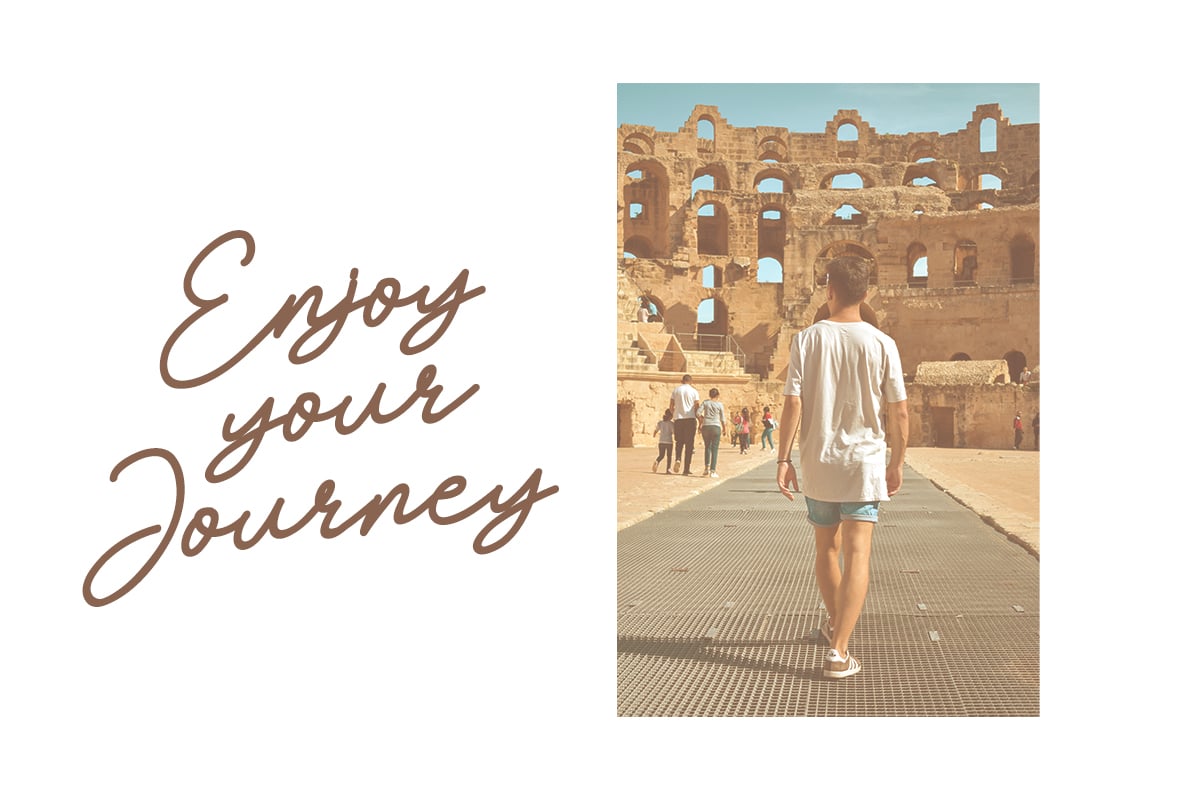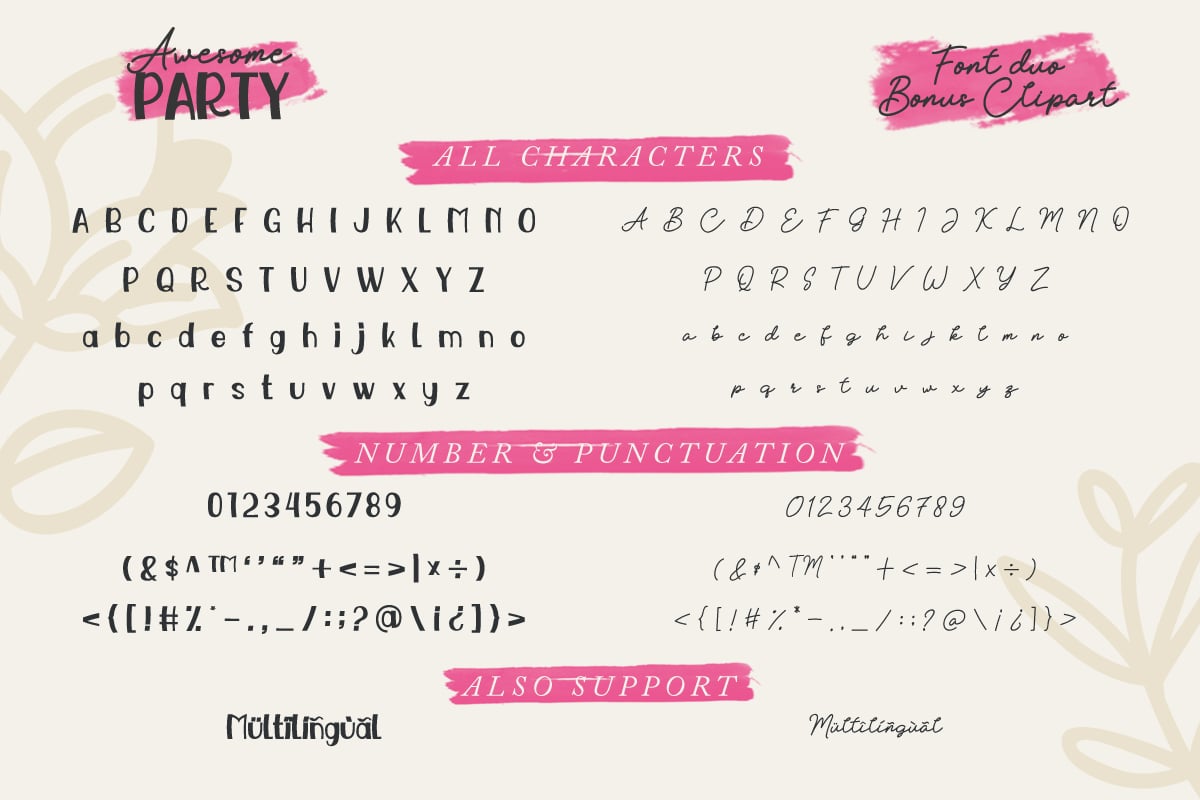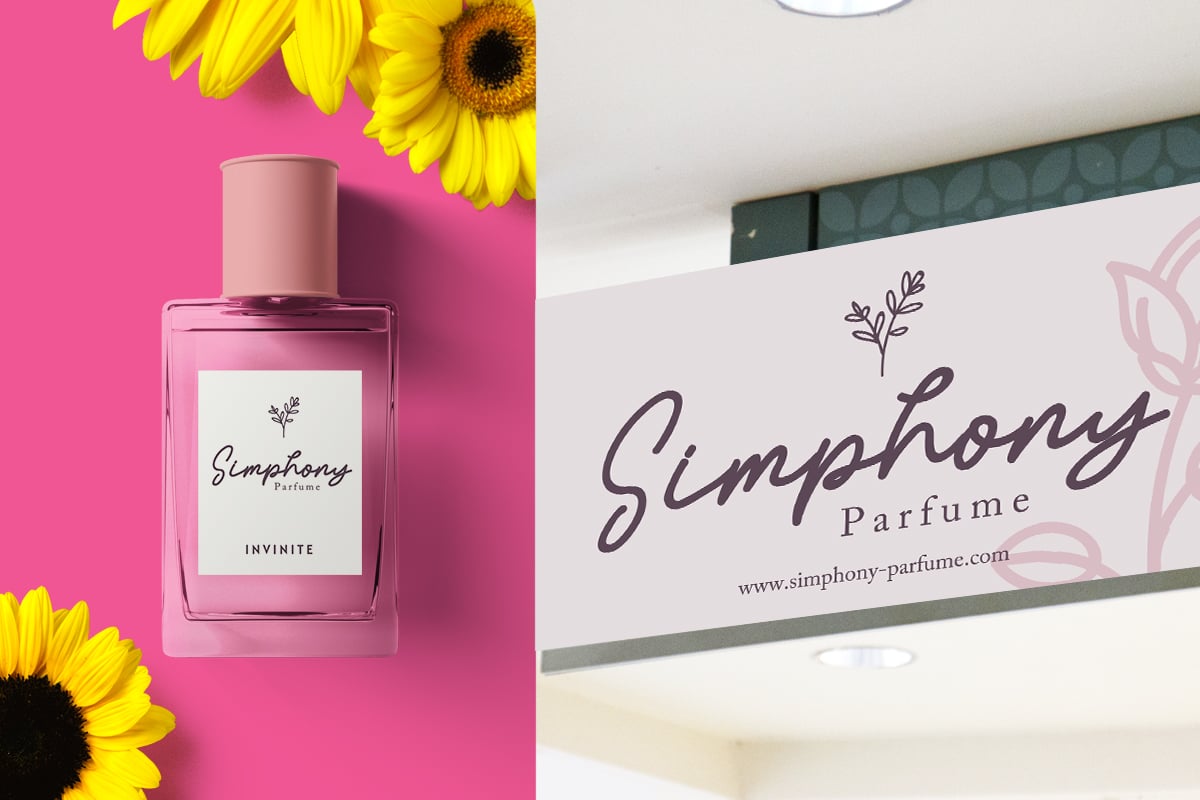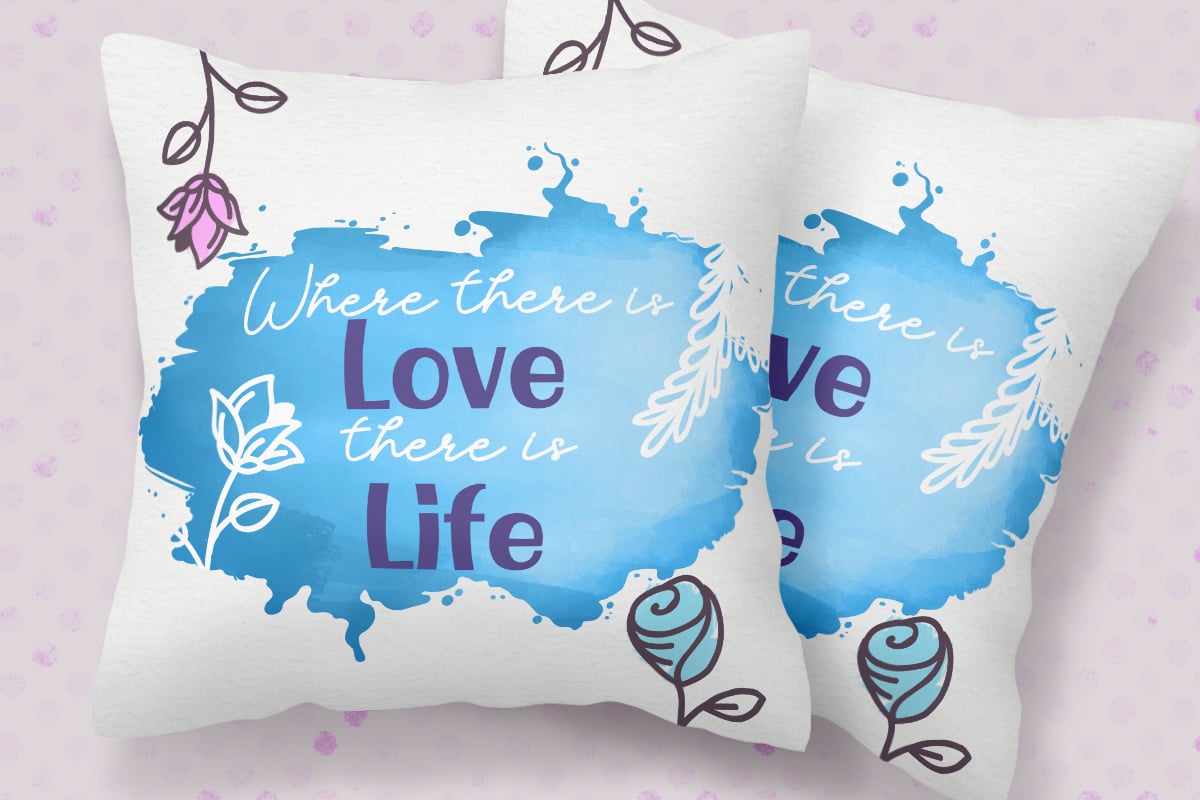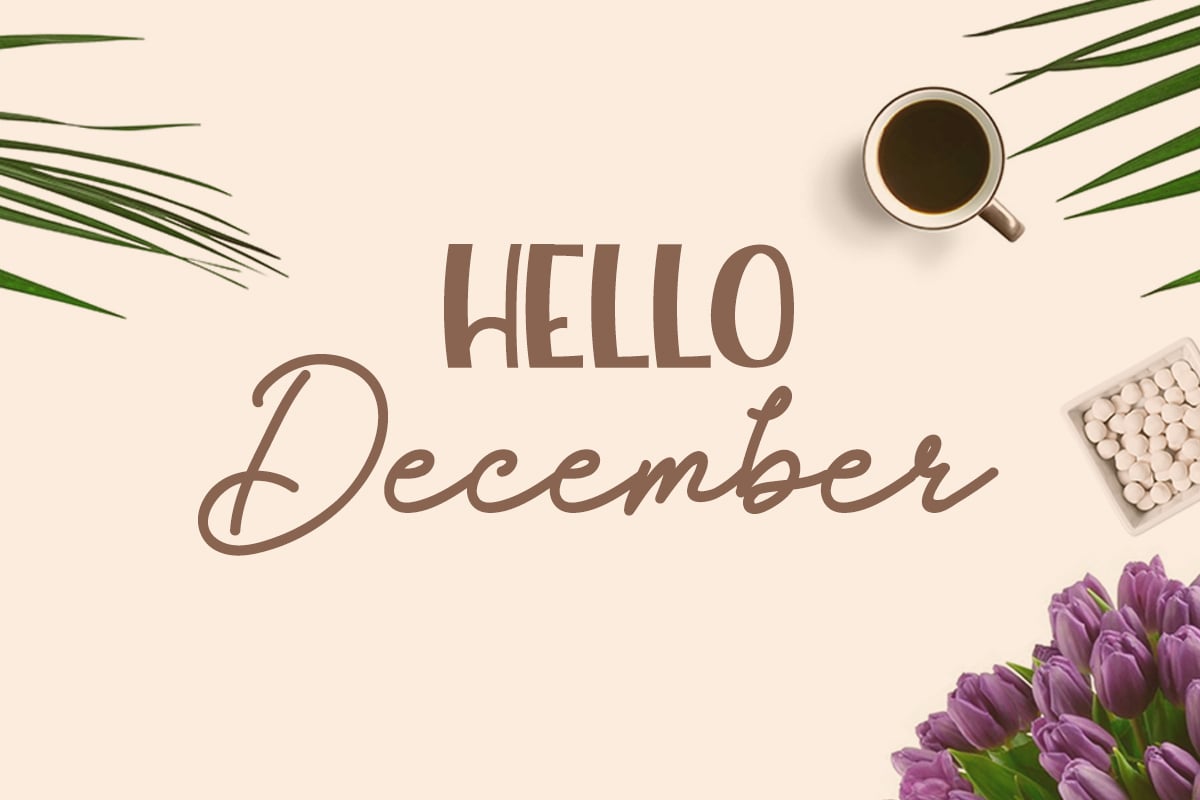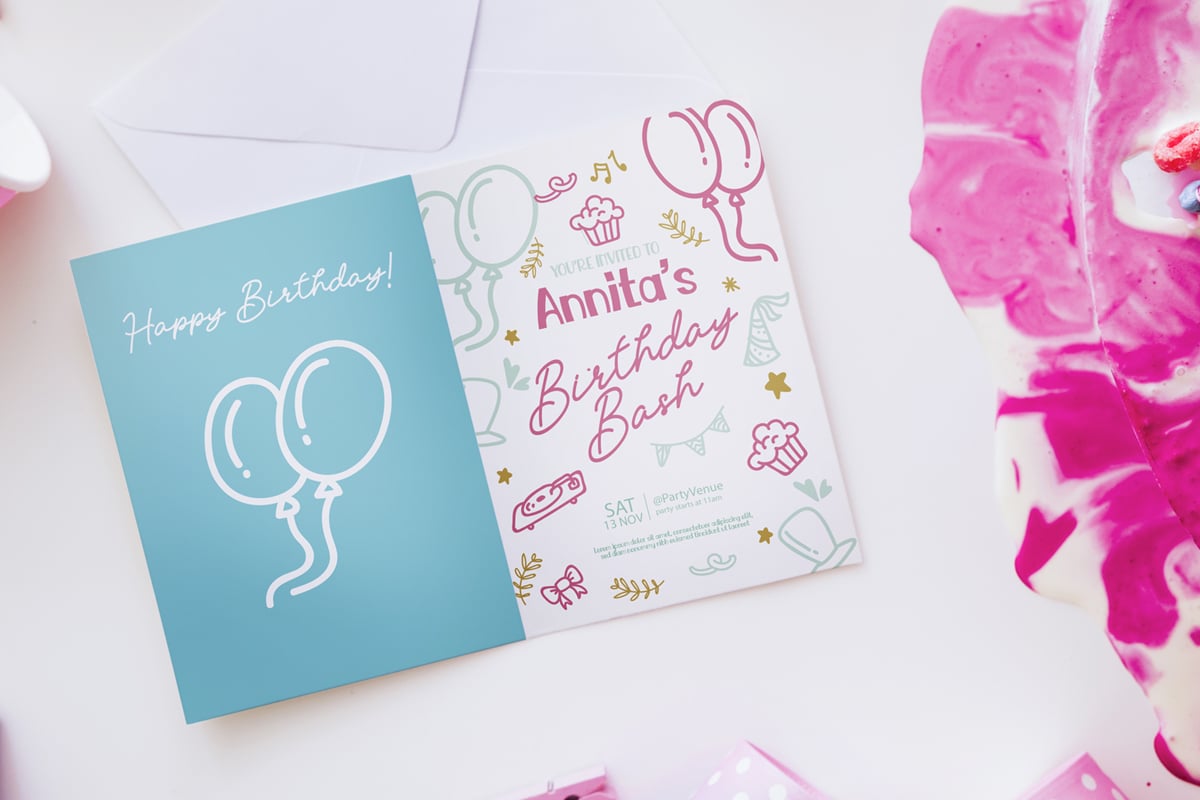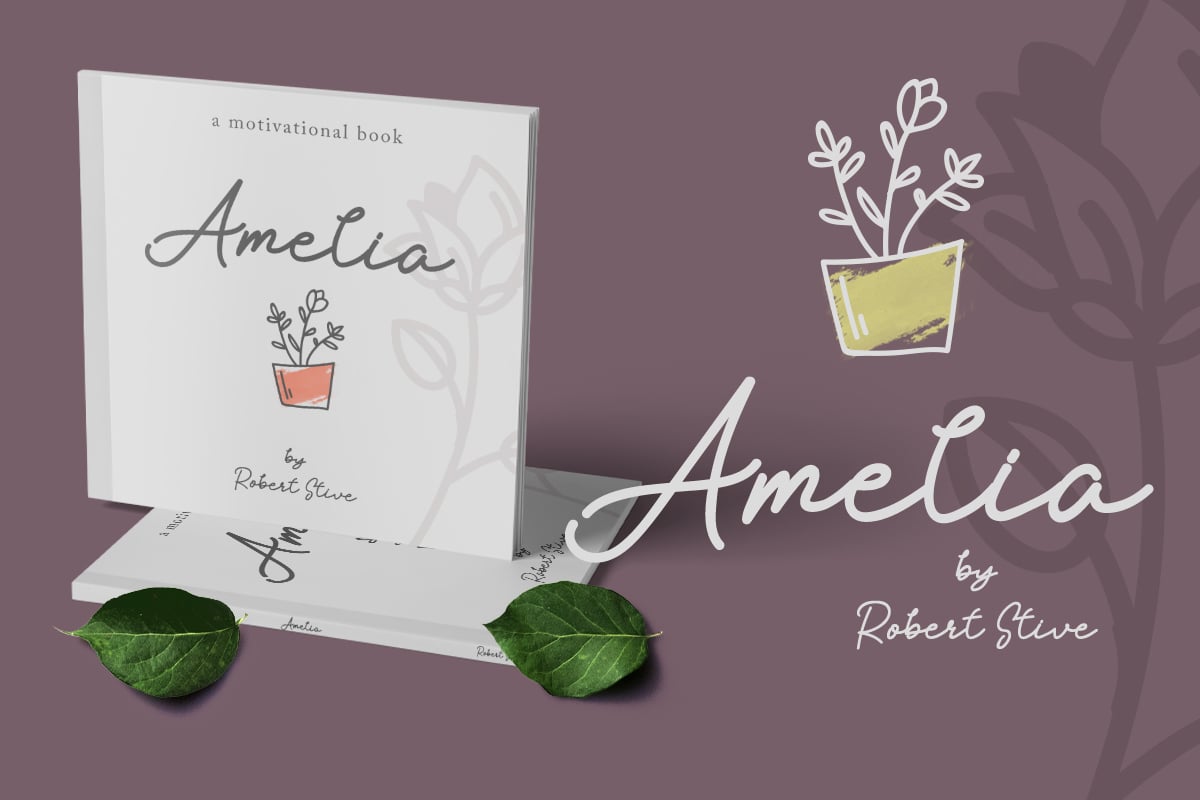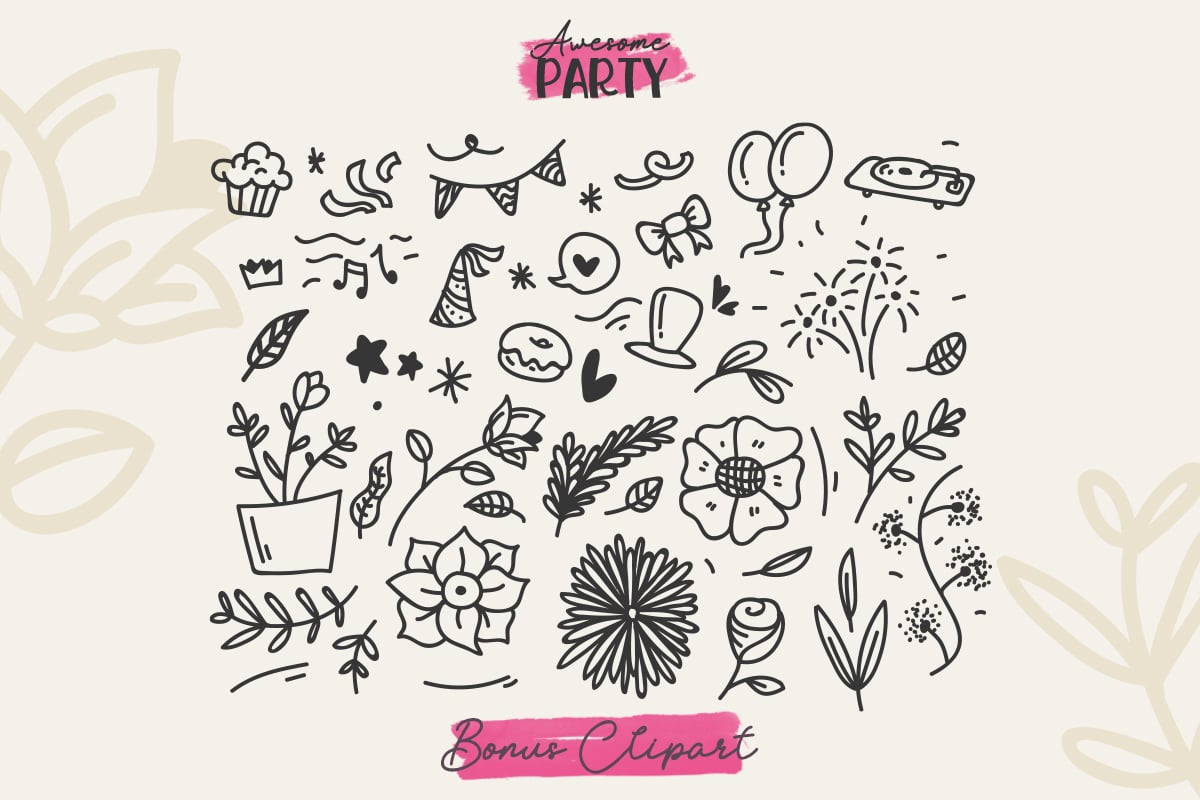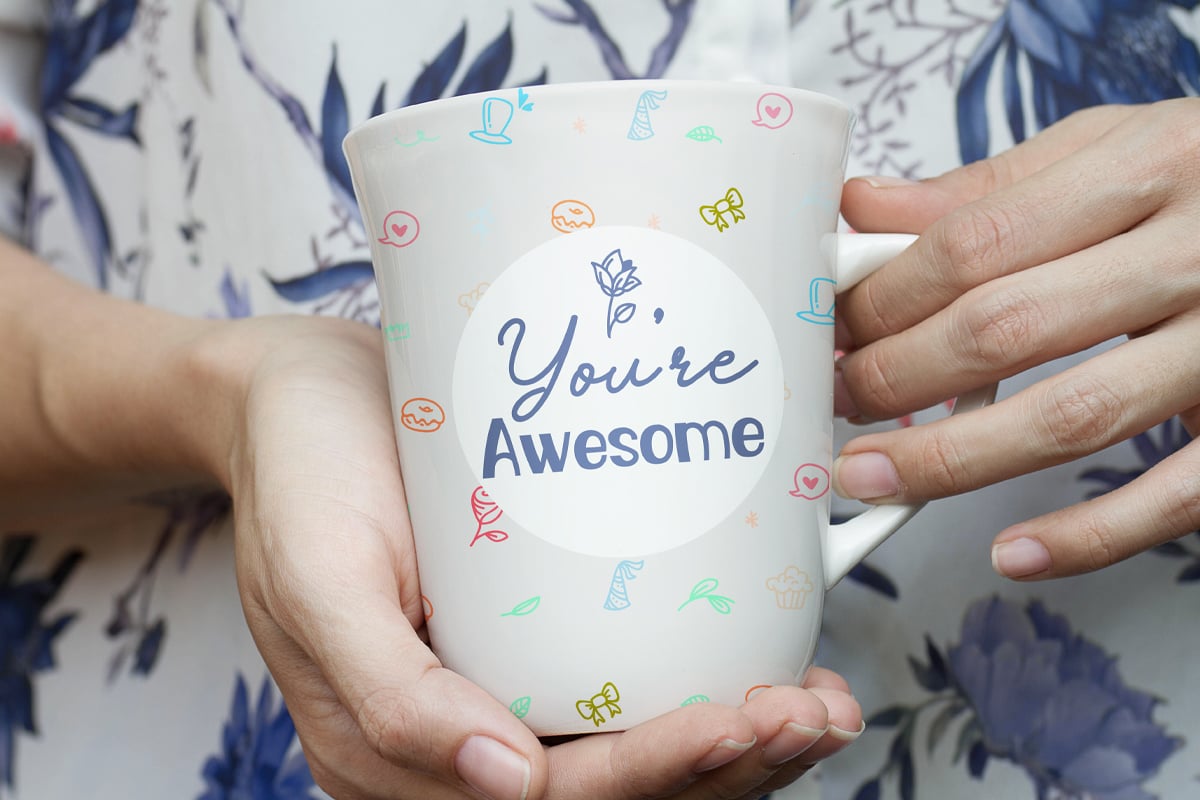
Awesome Party Font Duo with Doodles
Awesome Party is a beautiful monoline font and combines with a beautiful display font. This font is suitable for any design like branding, quotes, t-shirt printing and etc.
- Accents (Multilingual characters)
- Beautiful Ligatures
- Numerals and Punctuations (OpenType Standard)
- Many of Awesome doodles